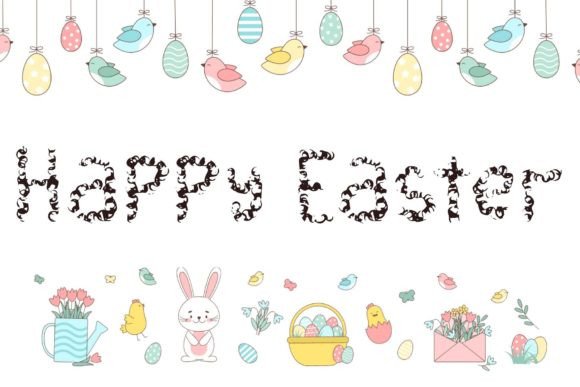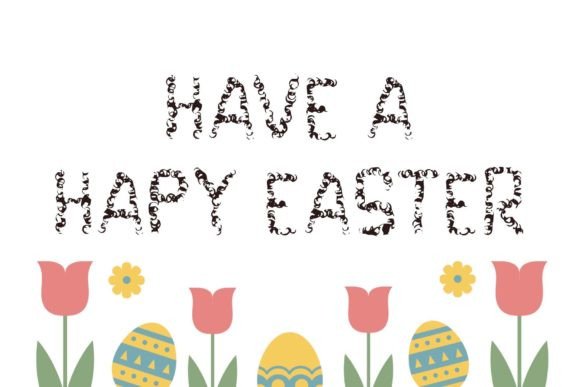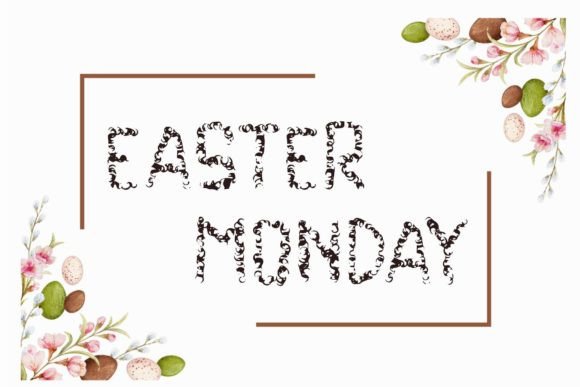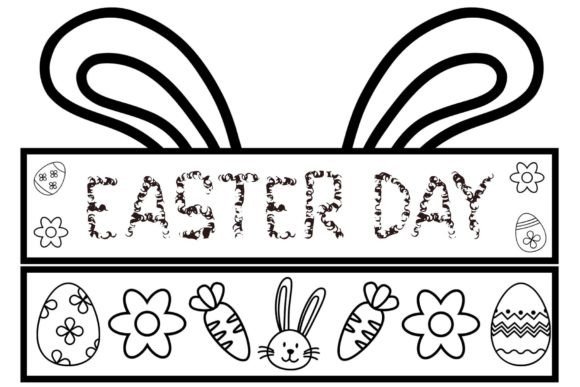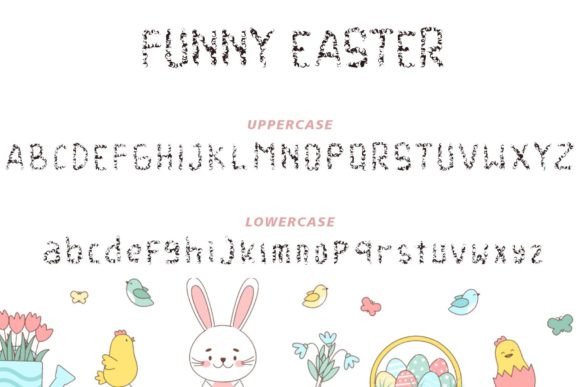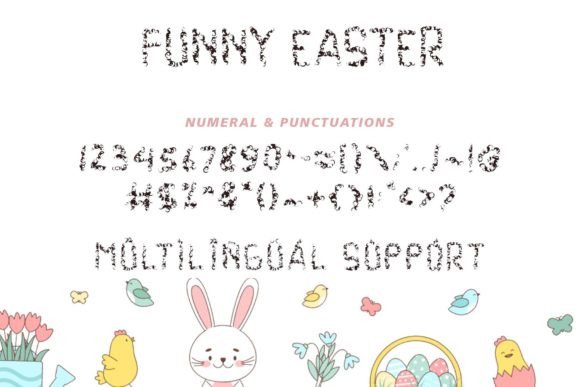
The Hunt for the Perfect Easter Font: A Designer’s Delight
I’ll never forget the time I was working on an Easter-themed project for a client, and I just couldn’t find the right font to match the playful and cheerful vibe I was going for. I scoured the internet, tried out dozens of fonts, but nothing seemed quite right. That was until I stumbled upon the Funny Easter font. It was like a breath of fresh air – unique, quirky, and perfect for the occasion. In this article, I’ll share my experience with this delightful font, and provide you with a comprehensive guide on how to use it in your own projects.
An Honest Review of Funny Easter Font
- ✨ Unique and distinctive shape that’s perfect for Easter and spring-themed projects
- 🎉 Fun and playful vibe that’s sure to bring a smile to your audience’s faces
While I absolutely love the Funny Easter font, there are a few quirks to be aware of:
- 🤔 The font can be a bit over-the-top for more formal or professional projects. Use with caution!
The Backstory of Funny Easter Font
Legend has it that the Funny Easter font was created by a team of designers who were tasked with creating a unique and playful font for an Easter-themed project. They spent hours brainstorming ideas, experimenting with different shapes and styles, until finally, they came up with the Funny Easter font. And the rest, as they say, is history!
A: The Funny Easter font is a display font created specifically for Easter and spring-themed projects. It’s known for its unique and playful shape.